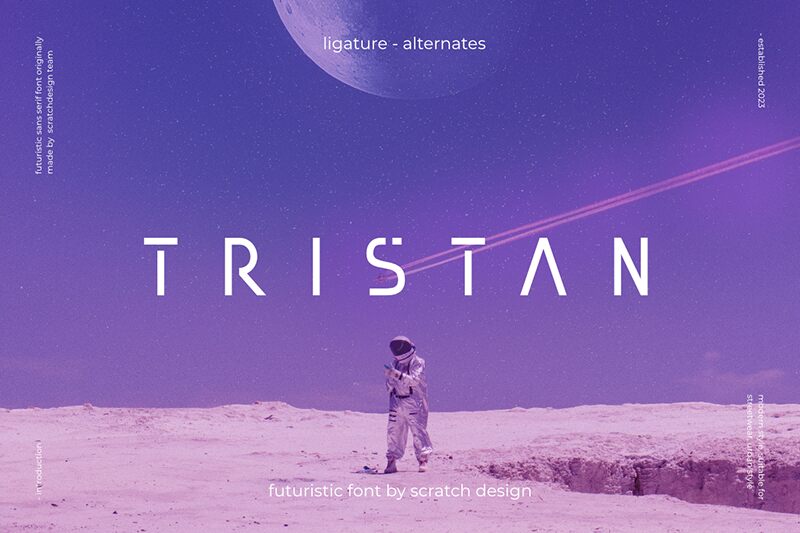
Tristan DEMO Regular
Tristan font by Scratch Design is a free futuristic display font designed with creativity in mind. It has squared letters with rounded cuts, which are joined together to create unique character shapes. Minimalist and sophisticated, the sans-serif typeface design looks geometric and modern.
You can use this font for digital projects like websites, apps, video games, UIs, virtual reality environments, gadgets packaging and posters. Printed magazines covers and titles pull off equally beautiful results when Tristan is used.